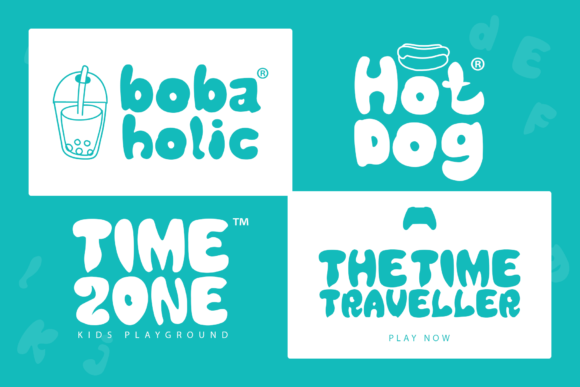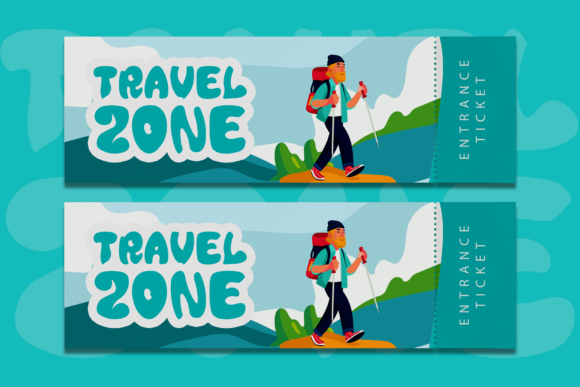
Introducing Bobba Font: A Modern and Playful Display Font for Crafters and Designers
In the world of typography, fonts play a crucial role in conveying messages, expressing emotions, and creating visual identities. For crafters and designers, finding the right font can make all the difference in their creative projects. This is where Bobba Font comes in – a modern and playful display font designed to elevate your designs and add a touch of personality to your work.
What is Bobba Font?
Bobba Font is a contemporary display font created by Kong Font Studio, a renowned font designer on Creative Fabrica. This font is perfect for crafters and designers looking to add a playful and modern twist to their projects. With its unique and eye-catching design, Bobba Font is ideal for a wide range of applications, including product packaging, branding projects, magazine covers, social media graphics, wedding designs, and more.
Key Features of Bobba Font
- Modern and Playful Design: Bobba Font boasts a fresh and playful design that’s perfect for creating visually appealing graphics and designs.
- Versatile: This font is suitable for various design projects, from product packaging to social media graphics, and can be used to create a wide range of visual content.
- Easy to Read: Despite its playful design, Bobba Font is easy to read, making it perfect for use in titles, headings, and short paragraphs.
- High-Quality: As a professionally designed font, Bobba Font offers high-quality typography that’s sure to impress.
Use Cases for Bobba Font
Bobba Font is an incredibly versatile font that can be used in a variety of design projects. Here are some use cases to get you started:
- Product Packaging: Add a touch of personality to your product packaging with Bobba Font. Use it to create eye-catching labels, tags, or even product names.
- Branding Projects: Create a consistent visual identity for your brand with Bobba Font. Use it in your logo, website, or marketing materials.
- Magazine Covers: Make your magazine cover stand out with Bobba Font. Use it to create bold and eye-catching headlines or titles.
- Social Media Graphics: Add a playful touch to your social media graphics with Bobba Font. Use it to create engaging quotes, promotions, or announcements.
- Wedding Designs: Use Bobba Font to create beautiful wedding designs, such as invitations, save-the-date cards, or wedding stationery.
Why Choose Bobba Font?
With so many fonts available, why choose Bobba Font? Here are a few reasons why:
- Unique Design: Bobba Font offers a unique and playful design that’s sure to make your designs stand out.
- High-Quality: As a professionally designed font, Bobba Font offers high-quality typography that’s perfect for commercial use.
Bobba Font is a modern and playful display font that’s perfect for crafters and designers looking to add a touch of personality to their designs. With its unique design, versatility, and high-quality typography, Bobba Font is an excellent choice for a wide range of design projects. Whether you’re creating product packaging, branding projects, or social media graphics, Bobba Font is sure to elevate your designs and make them stand out.